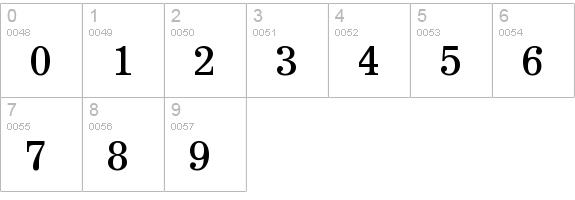
C795-Roman-Regular is the standard, neutral variant in the C795 typeface family \xE2\x80\x94 well suited to general body text, paragraphs, and standard typographic work.
C795-Roman-Regular is a classic and elegant font that exudes sophistication and style. With its clean lines and timeless appeal, this font is perfect for a wide range of design projects, from branding to editorial layouts. The versatile nature of C795-Roman-Regular makes it a go-to choice for designers looking to add a touch of class to their work. Best of all, C795-Roman-Regular is available for free download at FontsMarket.com. This means that you can access this beautiful font without any cost and use it in your projects to elevate your designs. Don't miss out on the opportunity to enhance your creations with the timeless charm of C795-Roman-Regular – download it today and see the difference it can make!